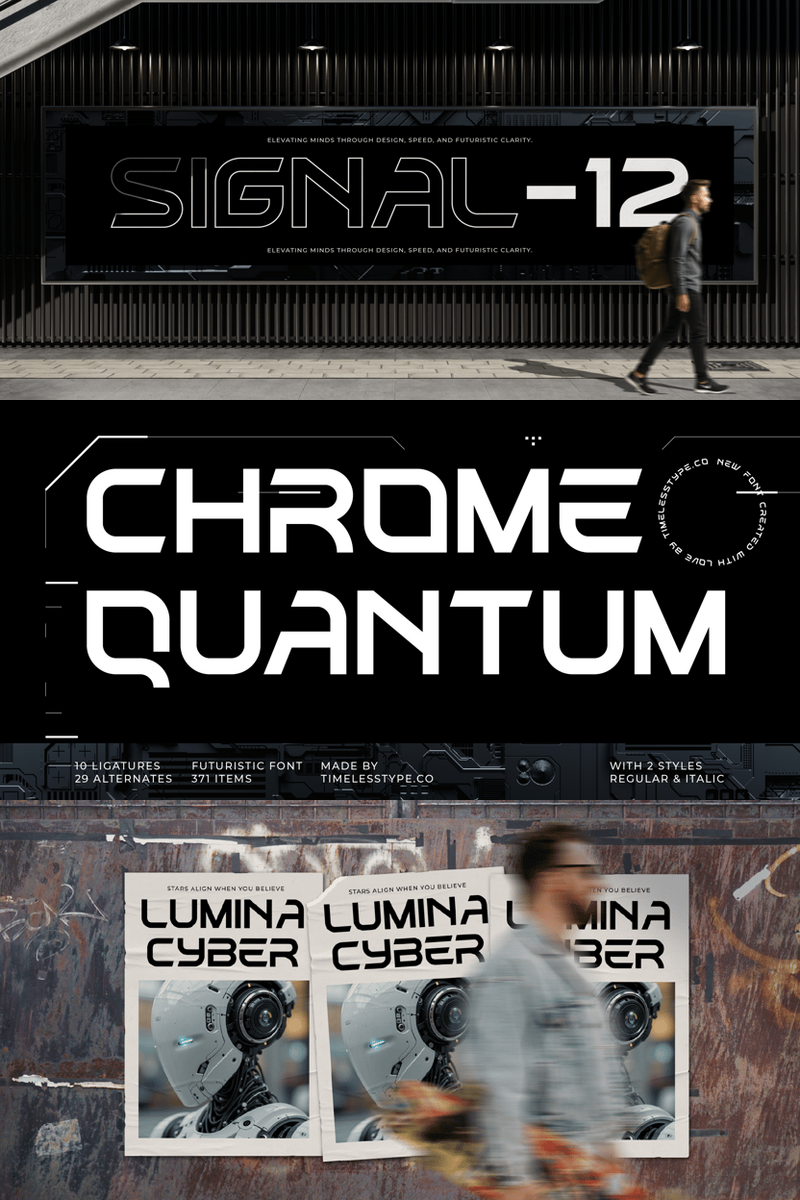
Chrome Quantum: Igniting User Experiences with Stellar Readability, Universal Accessibility, and Logos That Command Attention – Future-Proofing UX/UI from Dynamic Dashboards to Iconic Brand Emblems like a Fintech Startup's Precise 'CQ' Mark or a Med-Tech Platform's Fluid 'Q' Symbol.
Ready to shatter the compromise between breathtaking aesthetics and unwavering functionality? As a UX/UI designer, you're constantly seeking that elusive typeface that doesn't just look good, but performs flawlessly across every digital touchpoint. Chrome Quantum isn't just a font; it's the audacious answer you've been searching for.
Chrome Quantum emerges from the intersection of sleek, futuristic precision and profound human-centered design. Its letterforms are a masterclass in balance – sharp yet fluid, modern yet timeless. It evokes a feeling of quiet confidence, cutting-edge innovation, and crystal-clear authority. Think precision-engineered elegance that's undeniably forward-thinking.
Imagine a user effortlessly navigating your most complex application, data dashboards becoming instantly decipherable, and crucial information standing out with unwavering clarity – even on the smallest screens or in challenging light conditions. That's the Chrome Quantum effect. We know your design challenges: ensuring every pixel serves a purpose, every interaction is intuitive, and every user feels seen and understood. Chrome Quantum slots seamlessly into your workflow, liberating you from the constant battle between accessibility guidelines and compelling visual design. It's the typeface that speaks directly to your users, reducing cognitive load and transforming mere interaction into an intuitive, enjoyable journey.
The Chrome Quantum Value Proposition is Unmistakable:
• Unrivaled Readability, Unleashed Performance: Each character is meticulously crafted for maximum legibility, reducing eye strain and enhancing information absorption. This means higher engagement, fewer support tickets, and a design that truly works for everyone.
• Universal Accessibility, Effortlessly Integrated: Designed with WCAG standards at its core, Chrome Quantum ensures your interfaces are inclusive and compliant. Its distinct character differentiation, open counters, and optimized x-height mean no user is left behind – from high-contrast modes to low-vision support, it's designed for global impact.
• Striking Aesthetics, Strategic Versatility: Forget generic. Chrome Quantum projects a sophisticated, dynamic image that instantly elevates your brand. Its clean lines and modern presence make it perfect for everything from high-energy app interfaces to professional corporate web experiences, giving your brand a distinct, memorable voice.
• Brand Authority, Amplified: Build immediate trust and communicate a sense of cutting-edge reliability. When your typography is this polished and performant, your brand inherently gains credibility and stands out in a crowded digital landscape.
From the granular details of microcopy in a mobile app, the sprawling expanse of a responsive web design, to the critical labels on a data-rich dashboard, Chrome Quantum delivers. And for branding? Its unique structure provides a powerful foundation for iconic logotypes and wordmarks that exude modernity and clarity – imagine a tech startup’s name rendered with unmistakable confidence, or a forward-thinking financial institution’s tagline pulsing with digital energy.
Stop settling for typefaces that force you to choose between beauty and brains. It's time to infuse your designs with a typeface that demands attention, delivers clarity, and empowers every user. Discover the future of UI/UX typography. Explore our interactive gallery and experience the electrifying impact of Chrome Quantum across diverse digital environments.
Chrome Quantum: Igniting User Experiences with Stellar Readability, Universal Accessibility, and Logos That Command Attention – Future-Proofing UX/UI from Dynamic Dashboards to Iconic Brand Emblems like a Fintech Startup's Precise 'CQ' Mark or a Med-Tech Platform's Fluid 'Q' Symbol.
How to Forge a Luxury Social Media Logo with Foyeti's Tech-Inspired Innovation
In the bustling digital arena, your brand isn't just seen; it's felt. It's an impression, a statement, a whisper of distinction that cuts through the noise. For the discerning social media content creator, mediocrity is simply not an option. You understand that every pixel, every curated word, contributes to the compelling narrative you weave online.
Enter Foyeti, a typeface meticulously crafted from the nexus of cutting-edge technology and refined artistry. Its sleek, geometric lines speak of futuristic precision, yet its elegant curves evoke a timeless sense of luxury. Foyeti isn't just a font; it's an architectural marvel for your digital identity, imbued with a sophisticated, minimalist aesthetic that commands attention without shouting. It possesses an inherent intelligence, a subtle nod to the future that immediately aligns your brand with innovation.
You're constantly seeking that elusive edge, the visual language that truly encapsulates your unique vision. Foyeti steps into this space as your ultimate design ally. Imagine a font that effortlessly conveys your brand's forward-thinking ethos while exuding an undeniable air of exclusivity. It's for the creator who views their social feed not as a fleeting trend, but as a curated gallery of their professional self. Foyeti helps you transcend the ordinary, allowing your content to resonate with authority and allure, ensuring your message isn't just read, but experienced.
With Foyeti, you're not just choosing a typeface; you're investing in a powerful instrument for brand building. Its inherent readability ensures your insights are effortlessly absorbed, while its striking visual impact guarantees your posts stop the scroll. From creating a distinctive logo that immediately signals your premium status to crafting compelling story captions and video titles that maintain a consistent, high-end brand voice, Foyeti offers unparalleled versatility. It forges an emotional connection with your audience, positioning you as an innovator and a leader in your niche. Foyeti elevates your visual storytelling, turning mere content into a signature brand experience.
Picture Foyeti gracing the refined contours of your personal brand logo, a symbol of your tech-savvy elegance. Envision it illuminating your Instagram carousels, transforming data into design. See it as the authoritative voice in your YouTube intros, or lending a sophisticated polish to your TikTok overlays. Foyeti is designed for every touchpoint where your brand meets the world, from sophisticated branding kits to high-impact post graphics and dynamic video titles.
Foyeti: The Signature of Tomorrow's Brands.